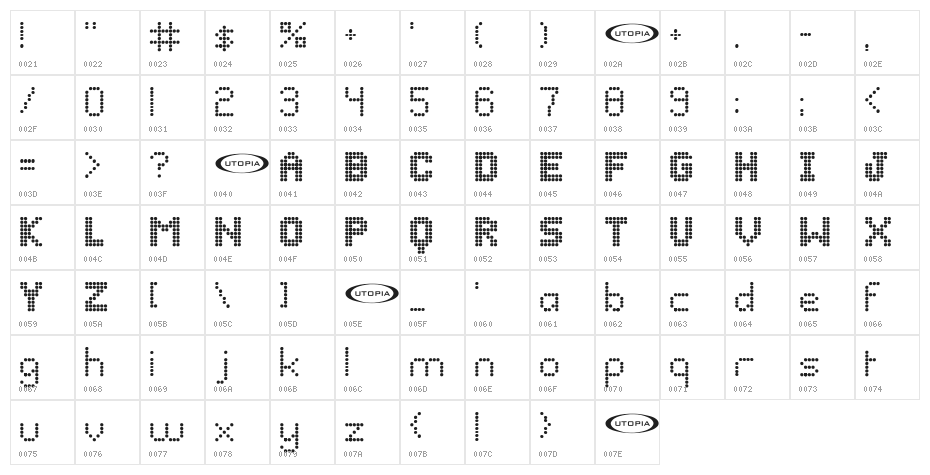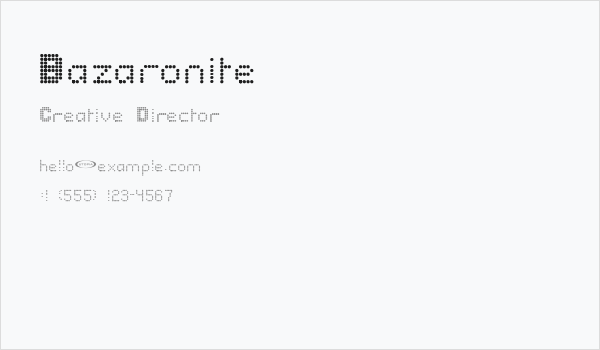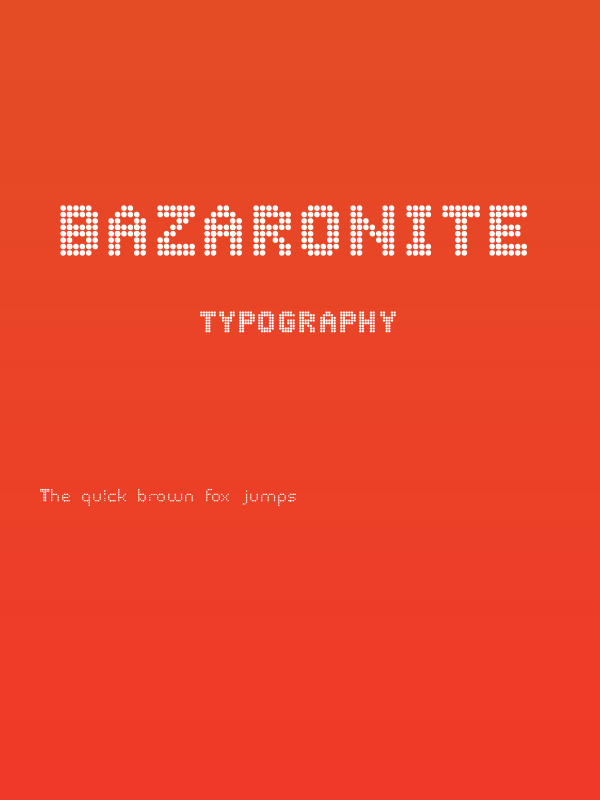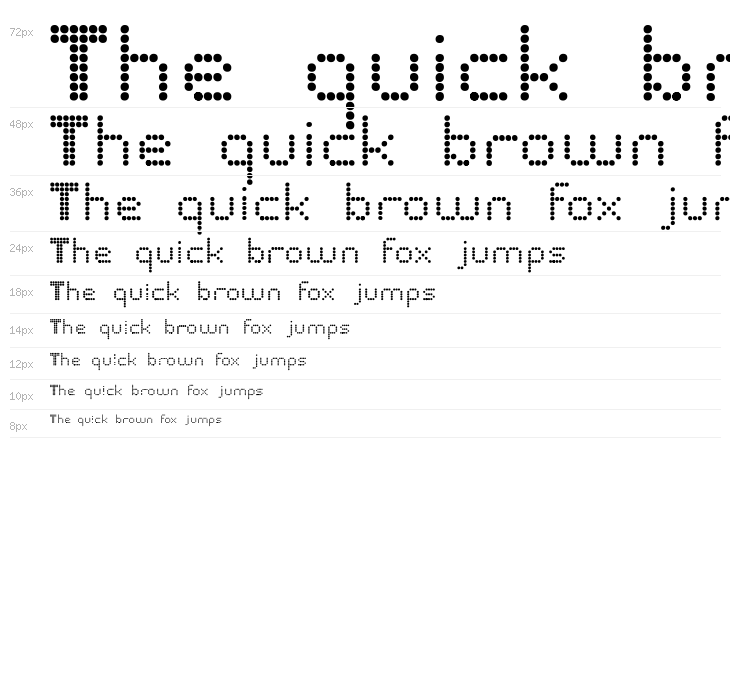
Bazaronite Font
Bazaronite Description
This font features a unique dot matrix design, where each character is composed of a series of evenly spaced dots. The style is reminiscent of digital displays or retro LED screens, giving it a distinct technological and futuristic feel. The uppercase and lowercase letters maintain a consistent structure, with rounded edges formed by the dots. Numbers and special characters follow the same dot pattern, ensuring uniformity across the font. This design is both playful and modern, making it suitable for creative and tech-oriented projects.
| Use Case | Logos, Headlines, Digital displays |
| Proposed Projects | Ideal for digital art, tech branding, retro-themed designs, and creative posters. |